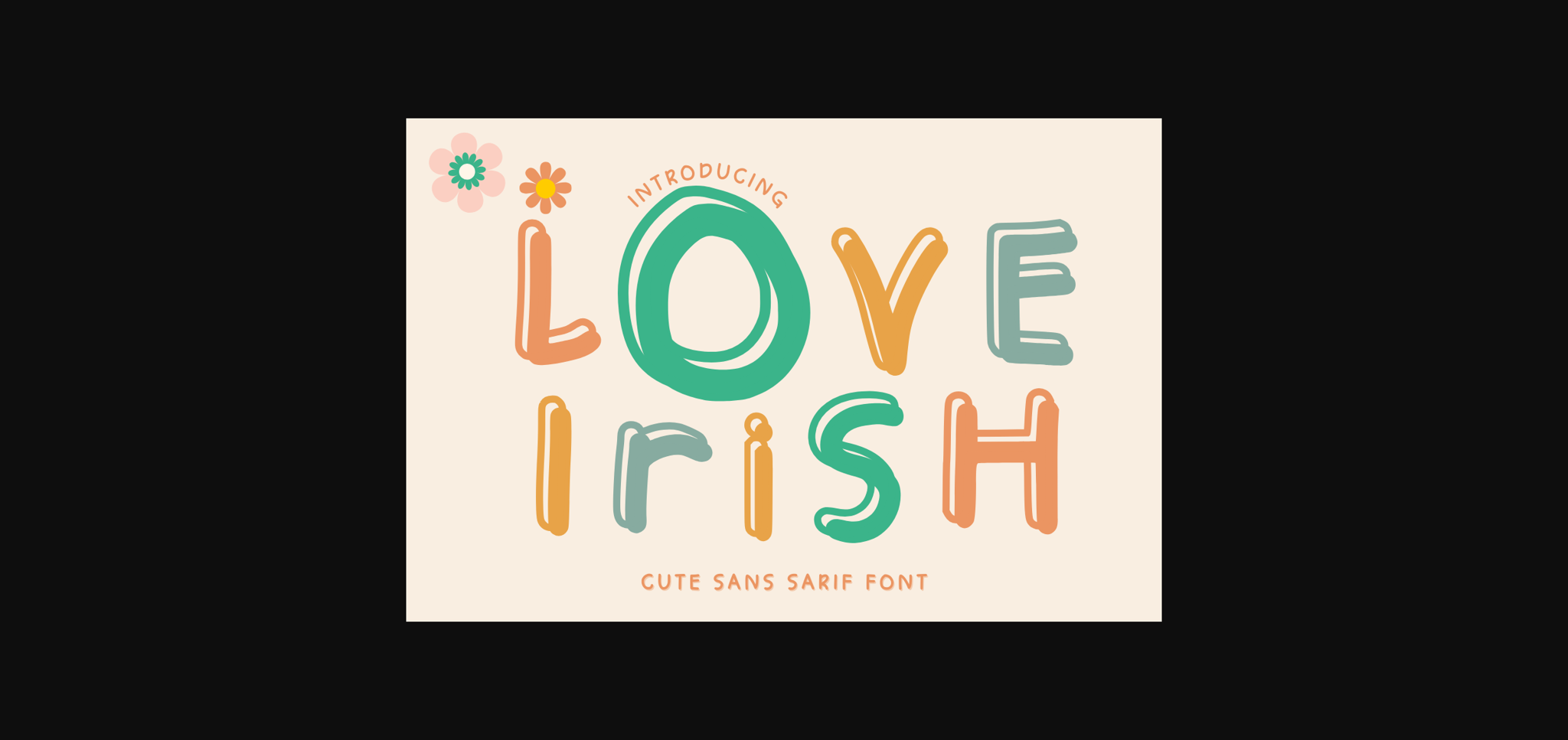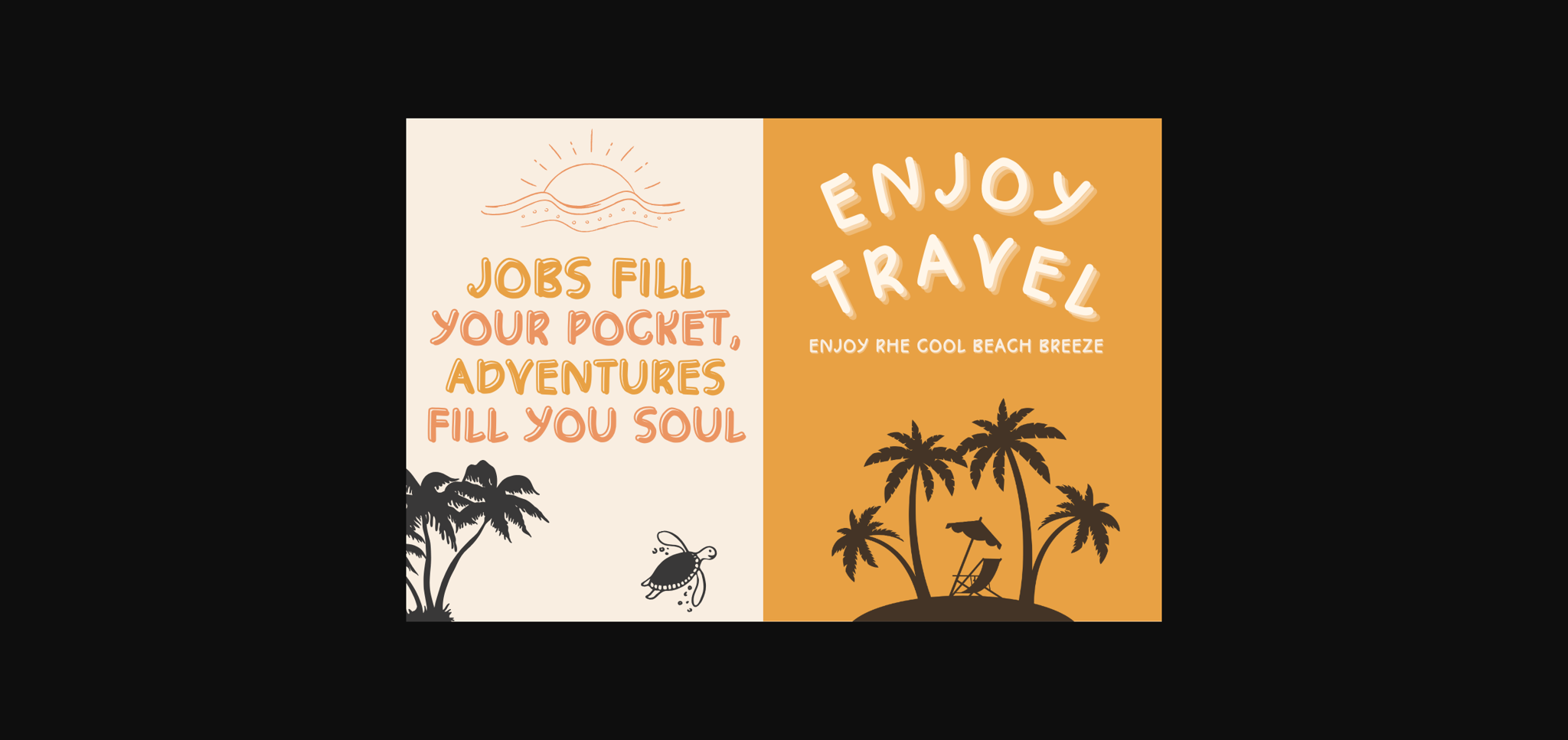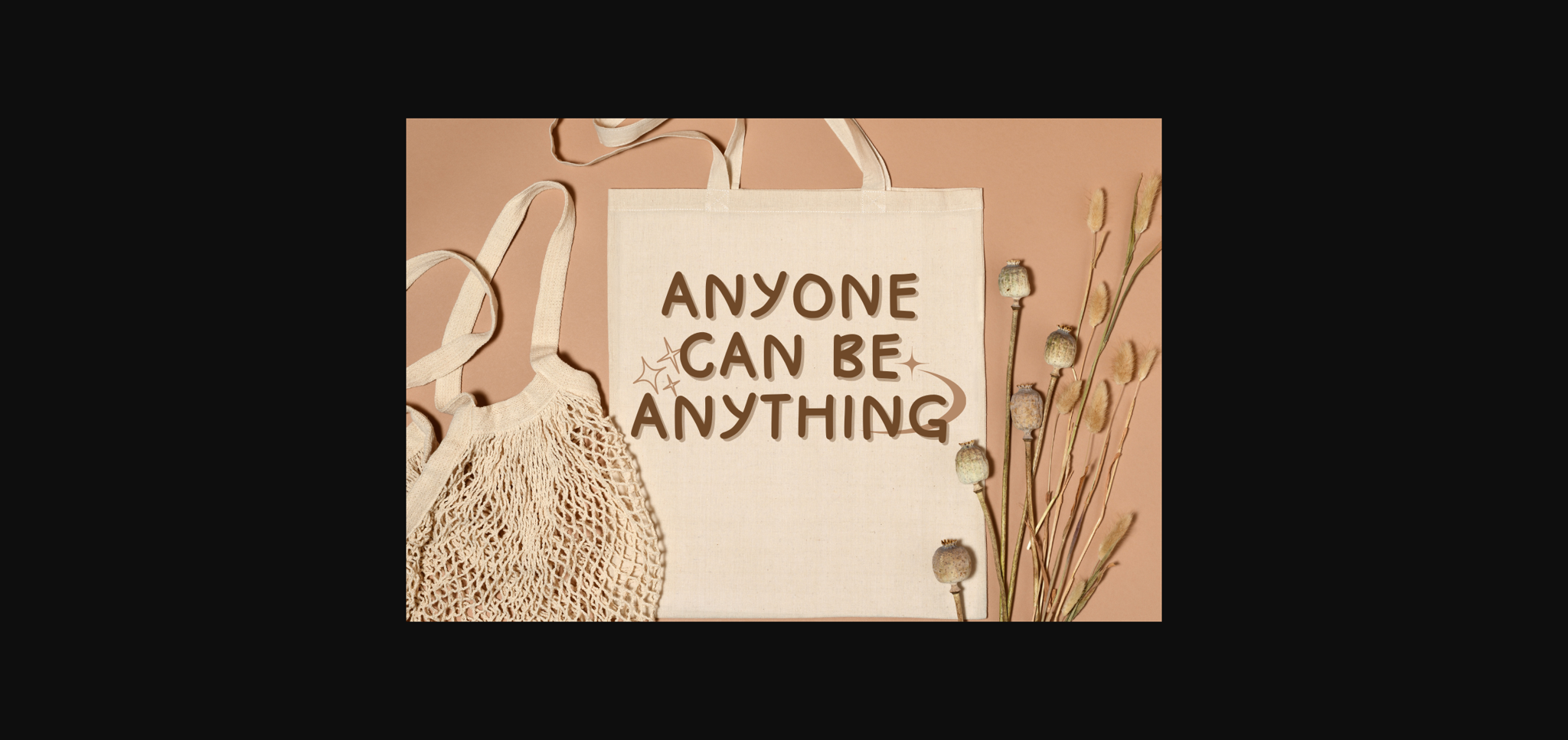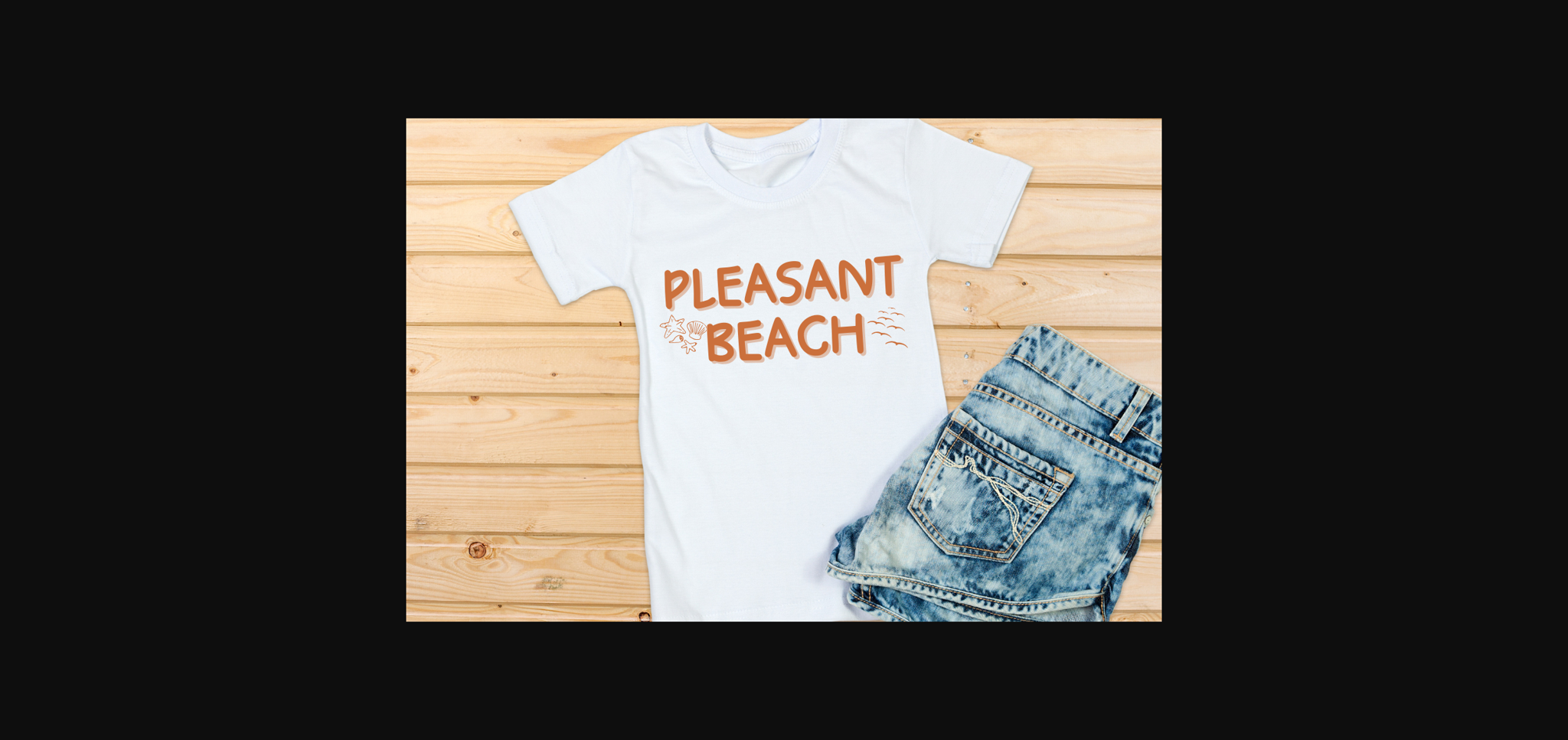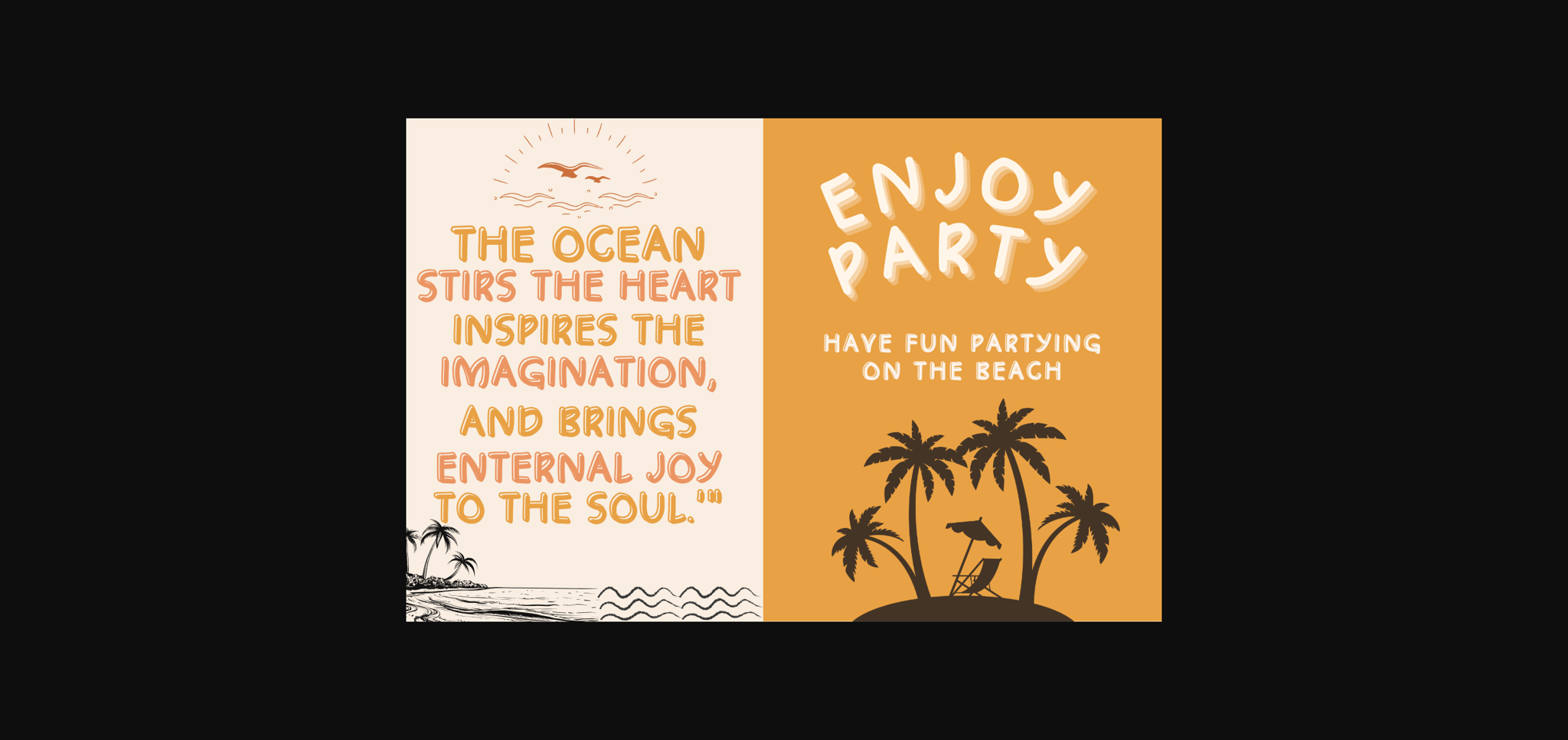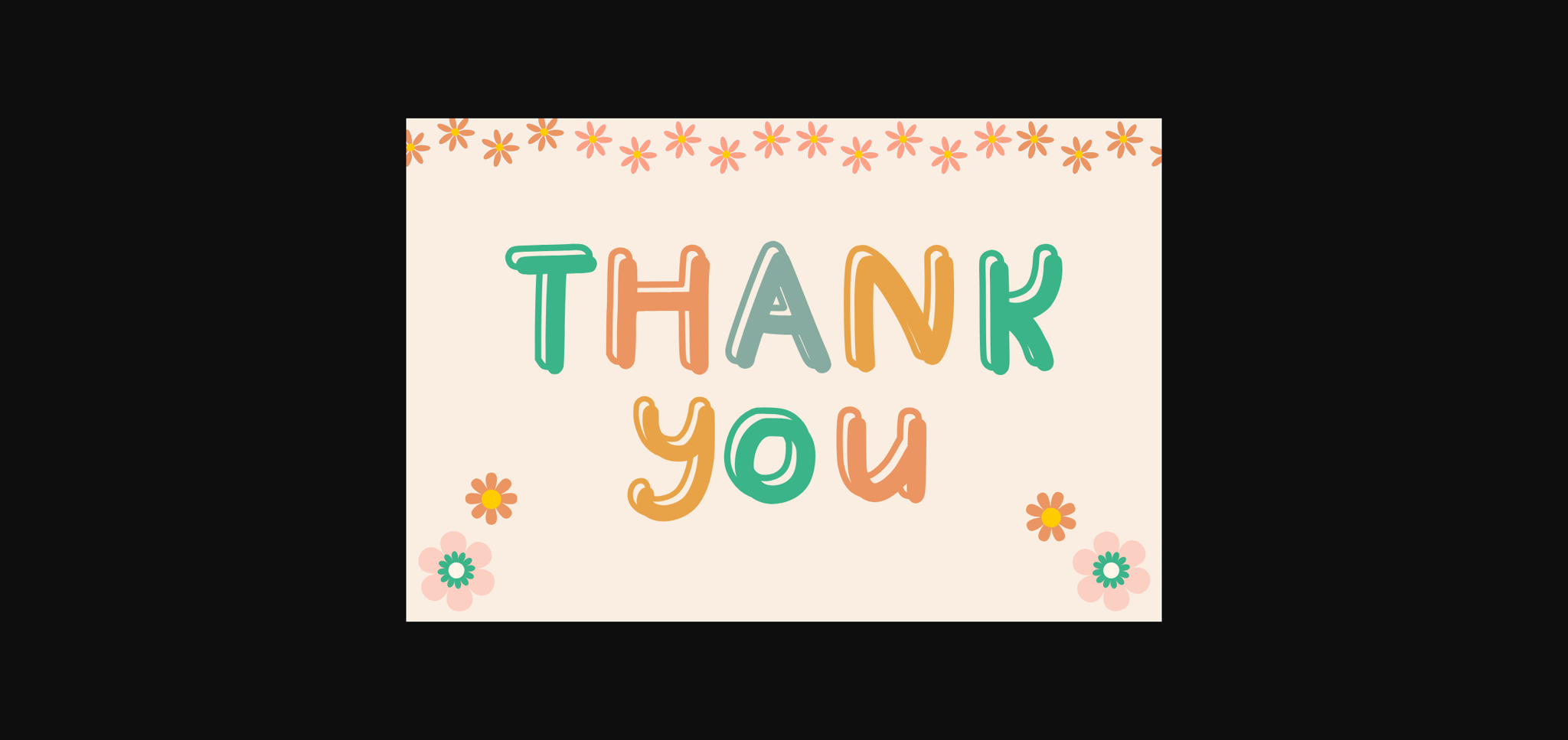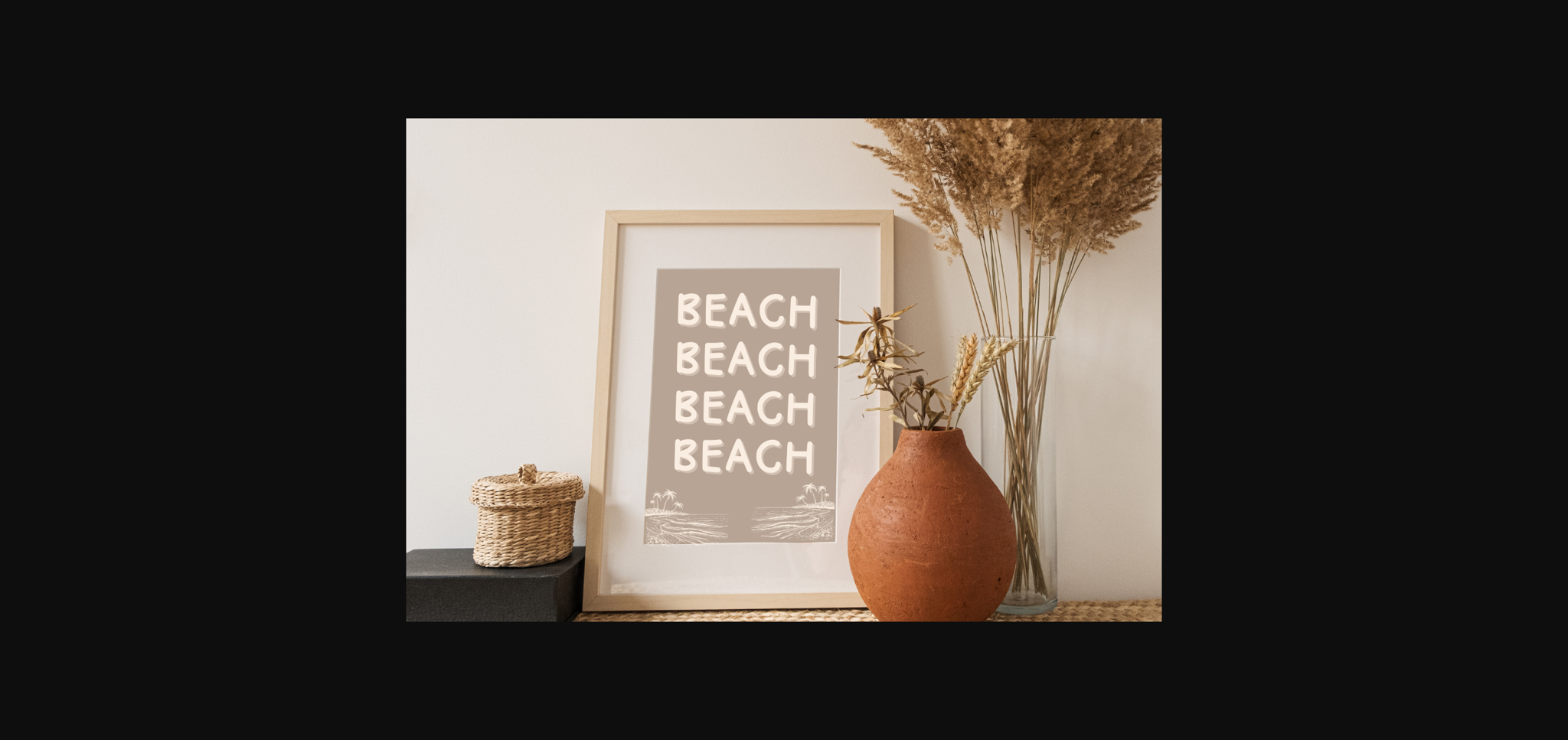
HomeSans Serif FontsLove Irish Font Sans Serif Fonts Love Irish Font FacebookXPinterestWhatsApp 1 of 9 ... Love Irish Font Poster 2... Love Irish Font Poster 3... Love Irish Font Poster 4... Love Irish Font Poster 5... Love Irish Font Poster 6... Love Irish Font Poster 7... Love Irish Font Poster 8... Love Irish Font Poster 9... About Love Irish Font Love Irish is a cute and adorable sans serif font. Perfect for social media, posters, stickers, notebooks and so much more. DOWNLOAD NOW People also explored Redtowns Font Sarfokats Font Avalien Font Aztecs Font Coconut Font Coffee House Font Monica Font My Dream Font Celine Genta Font 303 0 TagsLove Irish Font Previous articleLove Teacher FontNext articleHappy Queen Font LEAVE A REPLY Cancel reply Comment: Please enter your comment! Name:* Please enter your name here Email:* You have entered an incorrect email address! Please enter your email address here Website: Save my name, email, and website in this browser for the next time I comment. Personal Use Free Lumber Personal Use Free Read more about this font Avatarock Personal Use Free Read more about this font Anggraini Personal Use Free Read more about this font Arc Personal Use Free Read more about this font BLOG Transform Your Website: Elevate Your Typography with 7 Best Web Font Generators Are you ready to transform your website's typography from ordinary to extraordinary? Great! Today, we're diving into the world of web font generators, which... Where to Buy American Fonts Online in 2024 Free Fonts Risk: Why Free Fonts Can Be Dangerous for Designers 5 Fonts That Will Dominate Design Trends in 2026